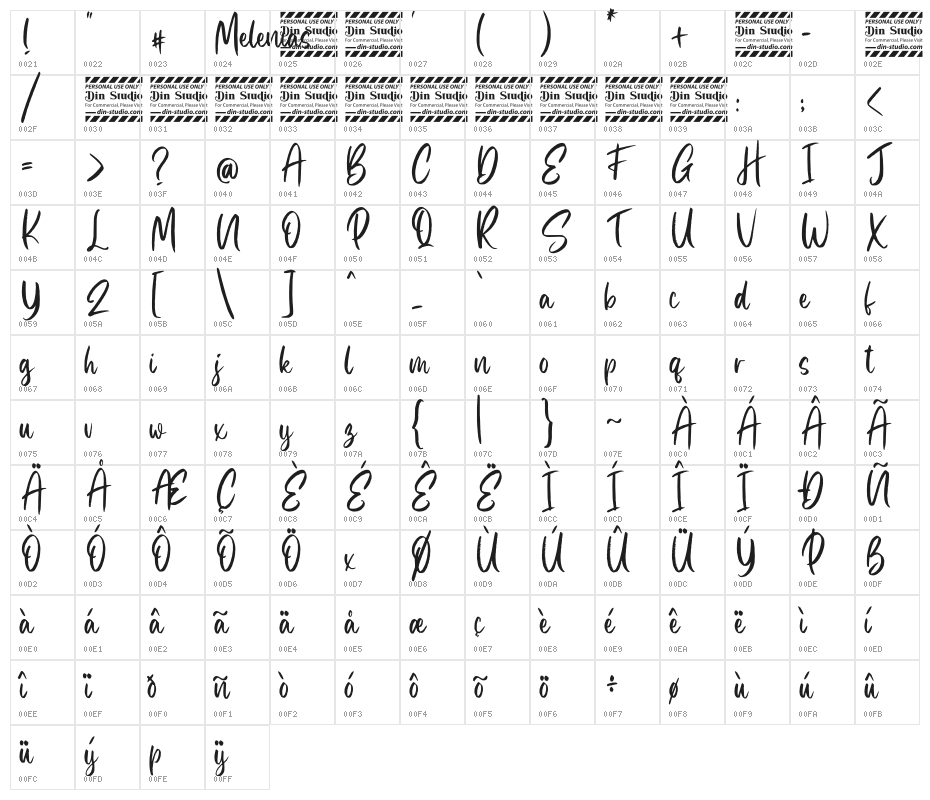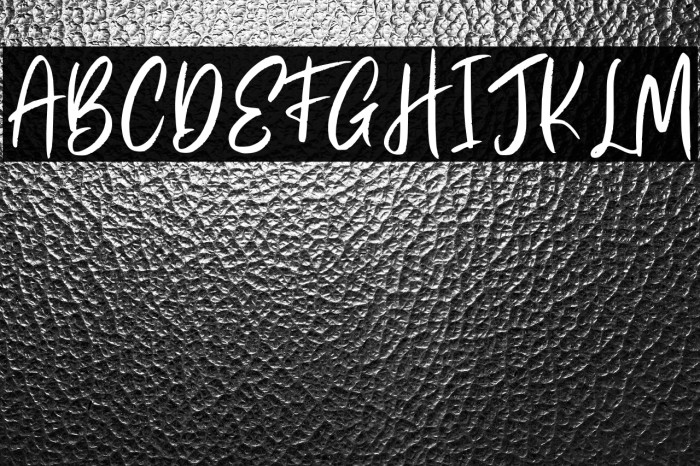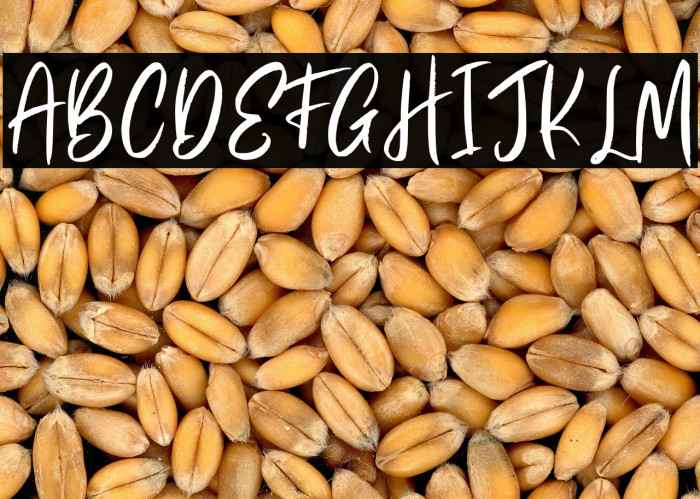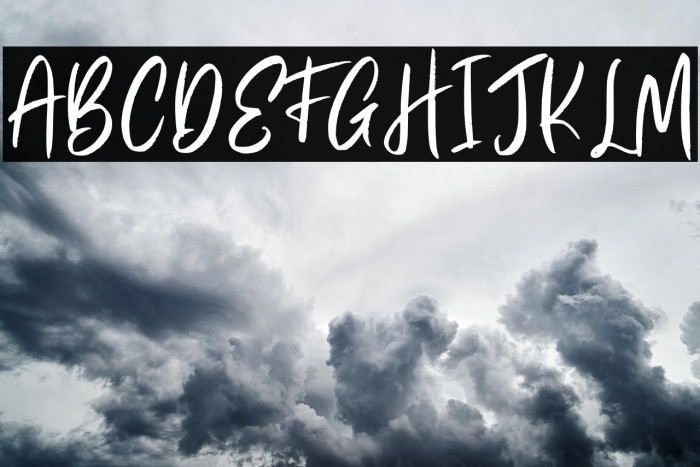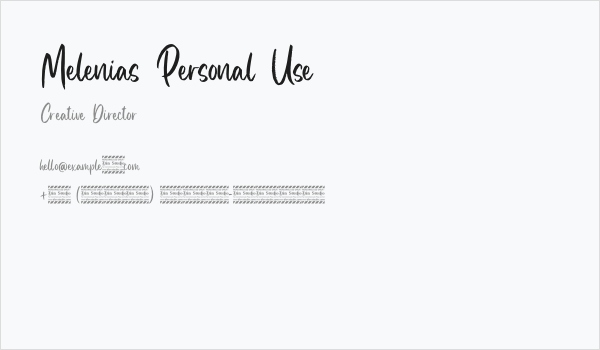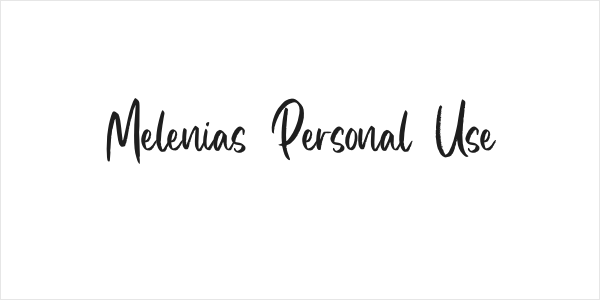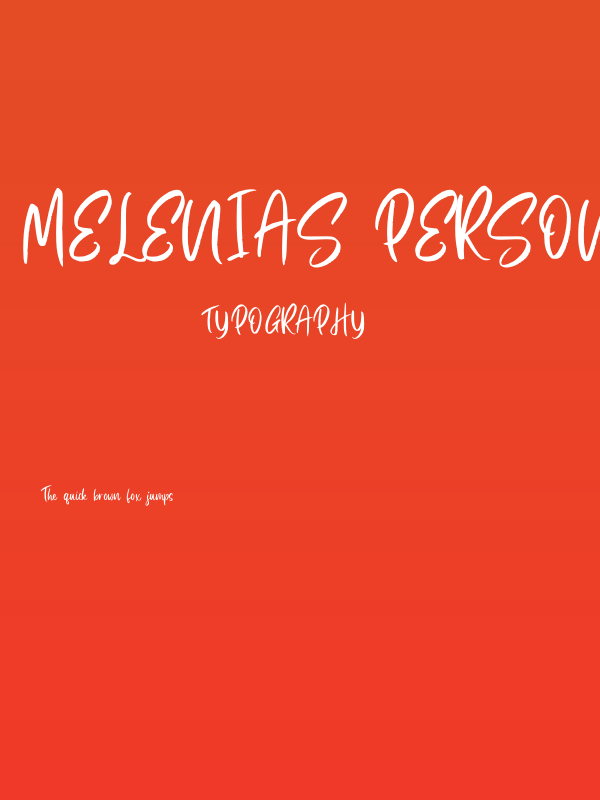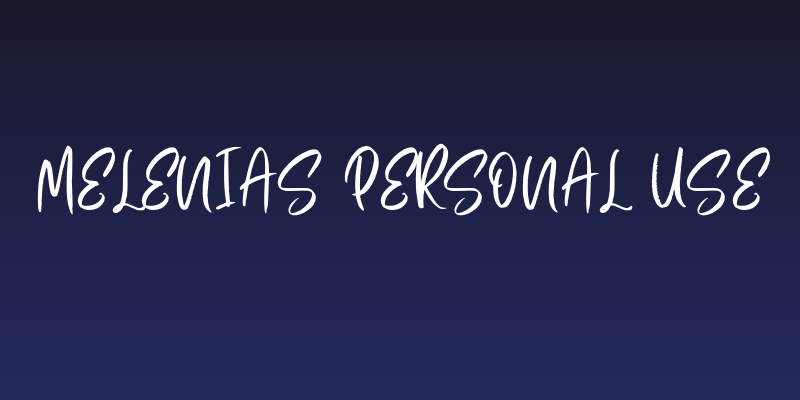
Melenias Personal Use Font
Melenias Personal Use Description
This font features a dynamic and expressive handwritten style, characterized by its fluid and organic strokes. The uppercase letters are bold and slightly slanted, giving a sense of movement and energy. The lowercase letters maintain a consistent flow, with some letters featuring unique loops and curves that add to the font's charm. The numbers and special characters are designed to match the overall aesthetic, ensuring a cohesive look. This font is perfect for projects that require a personal touch, such as invitations, greeting cards, or branding materials.